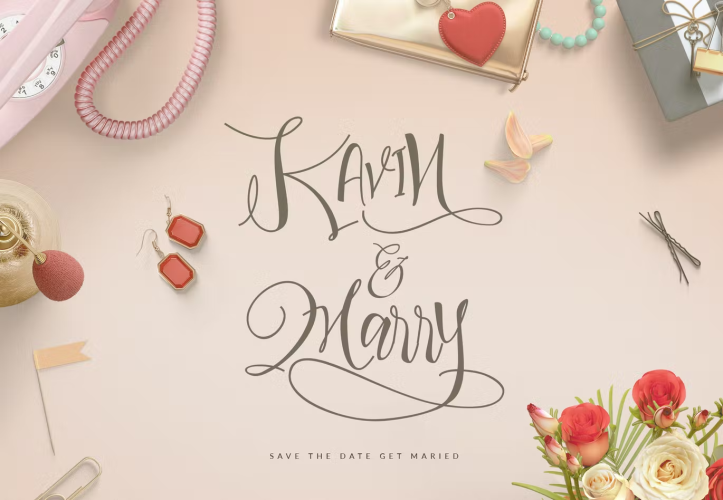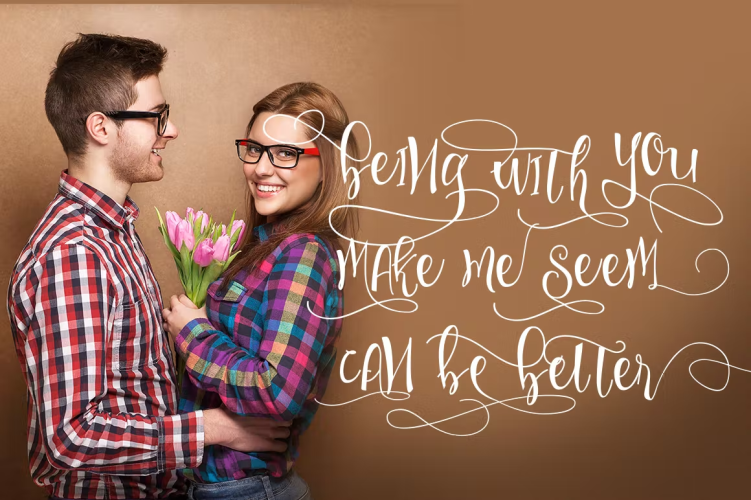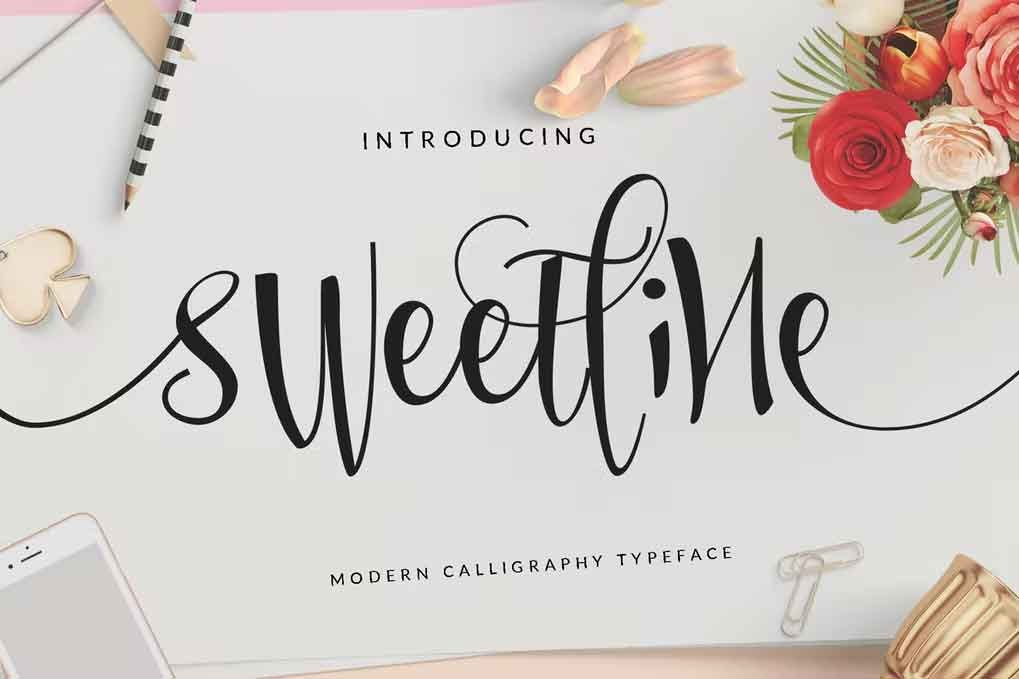
Sweetline Beautiful Script Font
Sweetline Typeface, is a calligraphy wavy, modern and clasik, perfect for your next design, such as logos, printed quotes, invitations, cards, product packaging, headers and anything else about your imagination.
Sweetline Typeface allows you to create custom dynamic text. you can access by turning on; Stylistic Set, Stylistic alternate, ligature, unique ligature, Initial and terminal as well as in Photoshop, Adobe Illustrator, Adobe InDesign or through a panel of glyphs such as Adobe Illustrator, Photoshop CC, Let’s switch from the reguler character into character alternative to get the text with the layout of your dreams. Sweetline Typeface also includes glyphs, punctuation, numbers, and multilingual.
Sweetline Typeface features 438 glyphs and has given PUA unicode (specially coded fonts), with tons of alternate characters. The pack can be accessed in full by any crafter or designer, without the requirement for extra design software, COMPATIBLE WITH SILHOUETTE & CRICUT DESIGN SPACE
Sweetline Beautiful Script Font is a Script And Handwritten font that brings a professional and versatile look to your projects. Sweetline Typeface , is a calligraphy wavy, modern and clasik, perfect for your next design, such as logos, printed quotes, invitations, cards, product packaging, headers and anything else about your imagination.
Sweetline Beautiful Script Font Previews